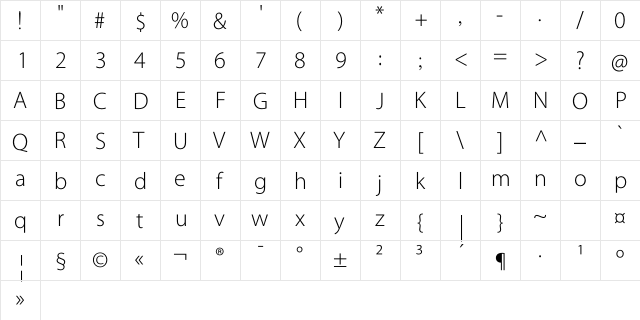
BPG Afxazeti Mrgvlovani Light
Design Context for BPG Afxazeti Mrgvlovani Typeface
BPG Afxazeti Mrgvlovani is a composed and adaptable typeface that performs quietly and consistently across a wide range of design contexts. Its slender proportions lend an understated elegance to any composition.